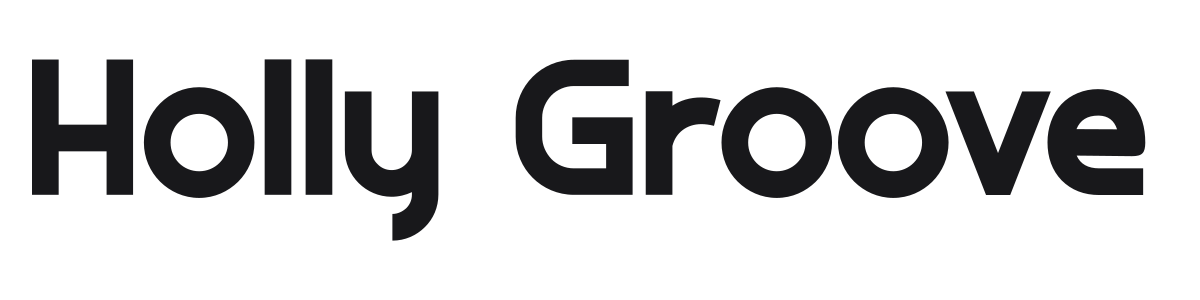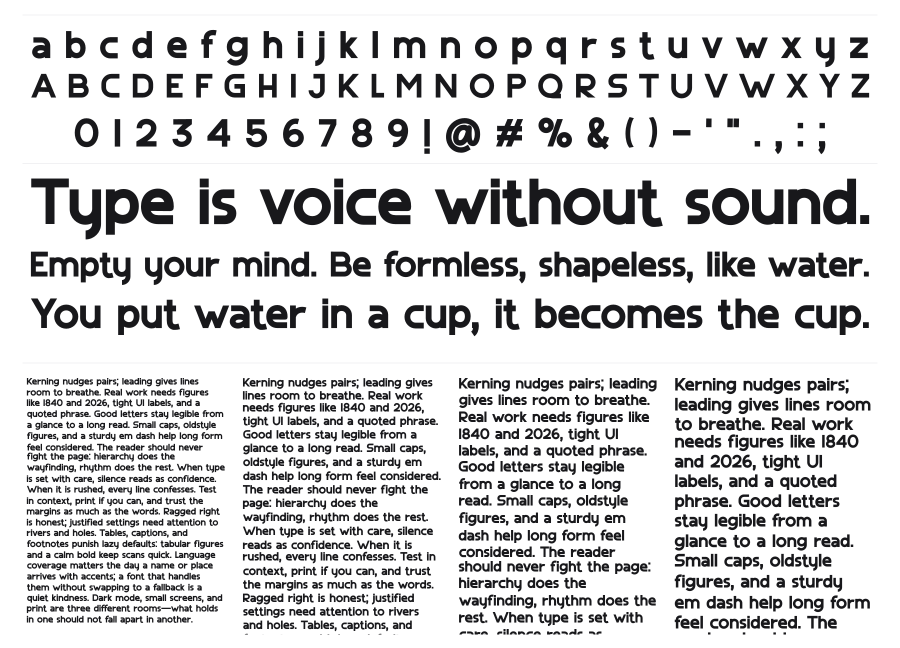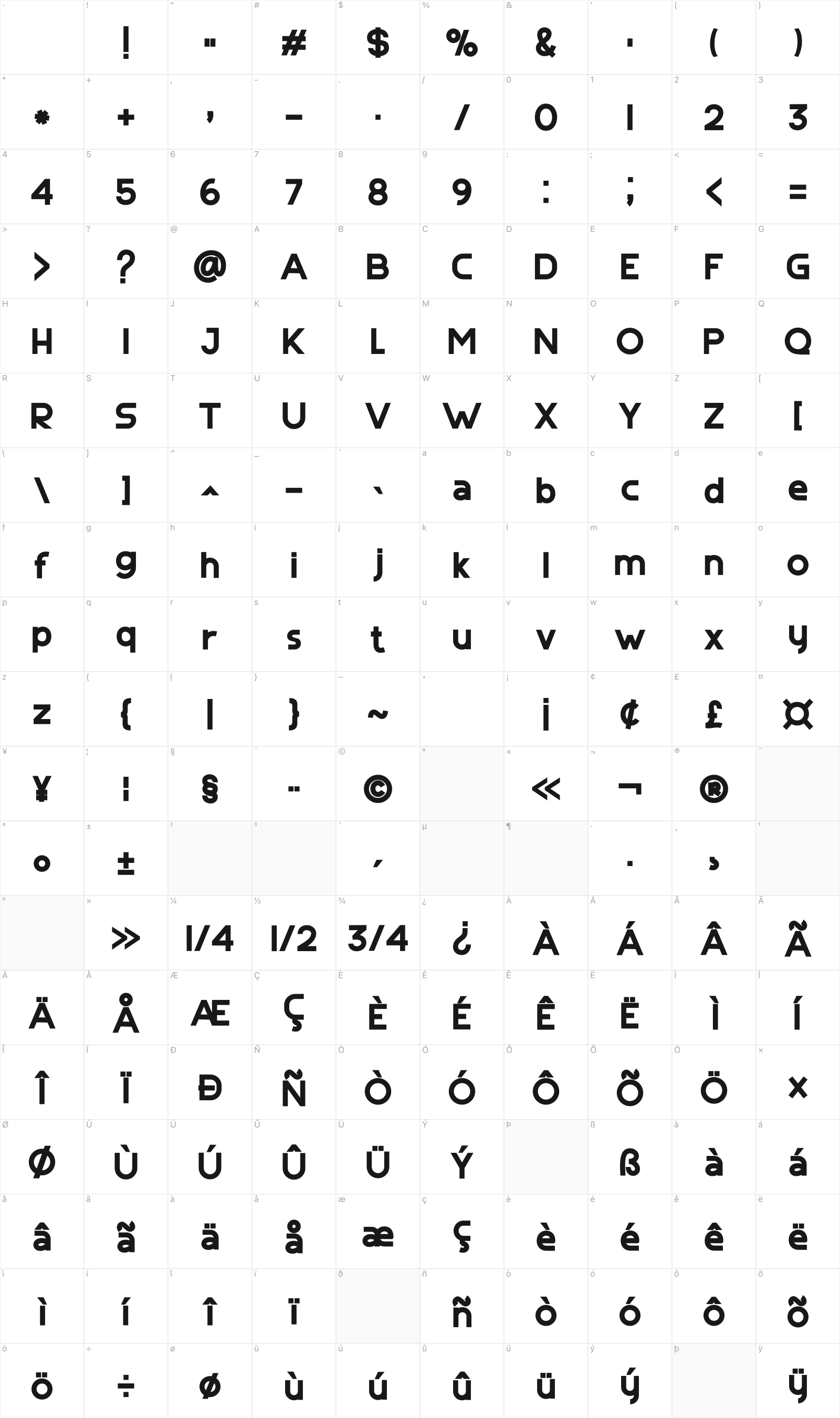
Holly Groove
Holly Groove is a bold geometric sans with wide proportions and softly rounded terminals that keep it feeling approachable rather than heavy. It sits in a popular sweet spot between neutral grotesque and friendlier geometric, which explains its traction with content creators and social media branding. Strong at large sizes for titles, thumbnails, and logo lockups.